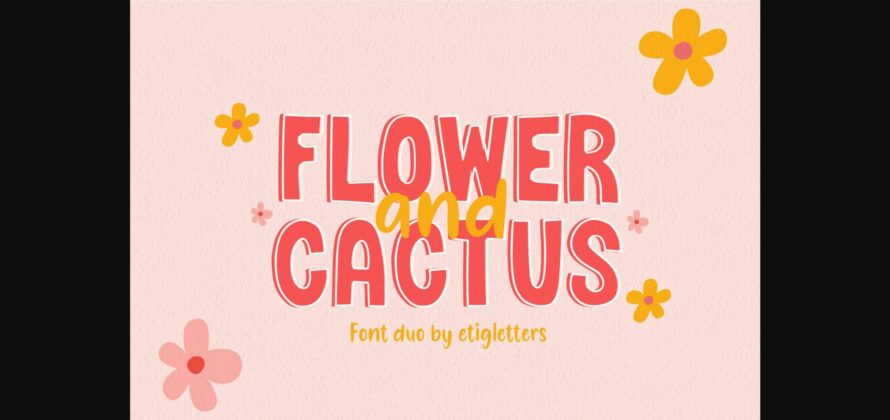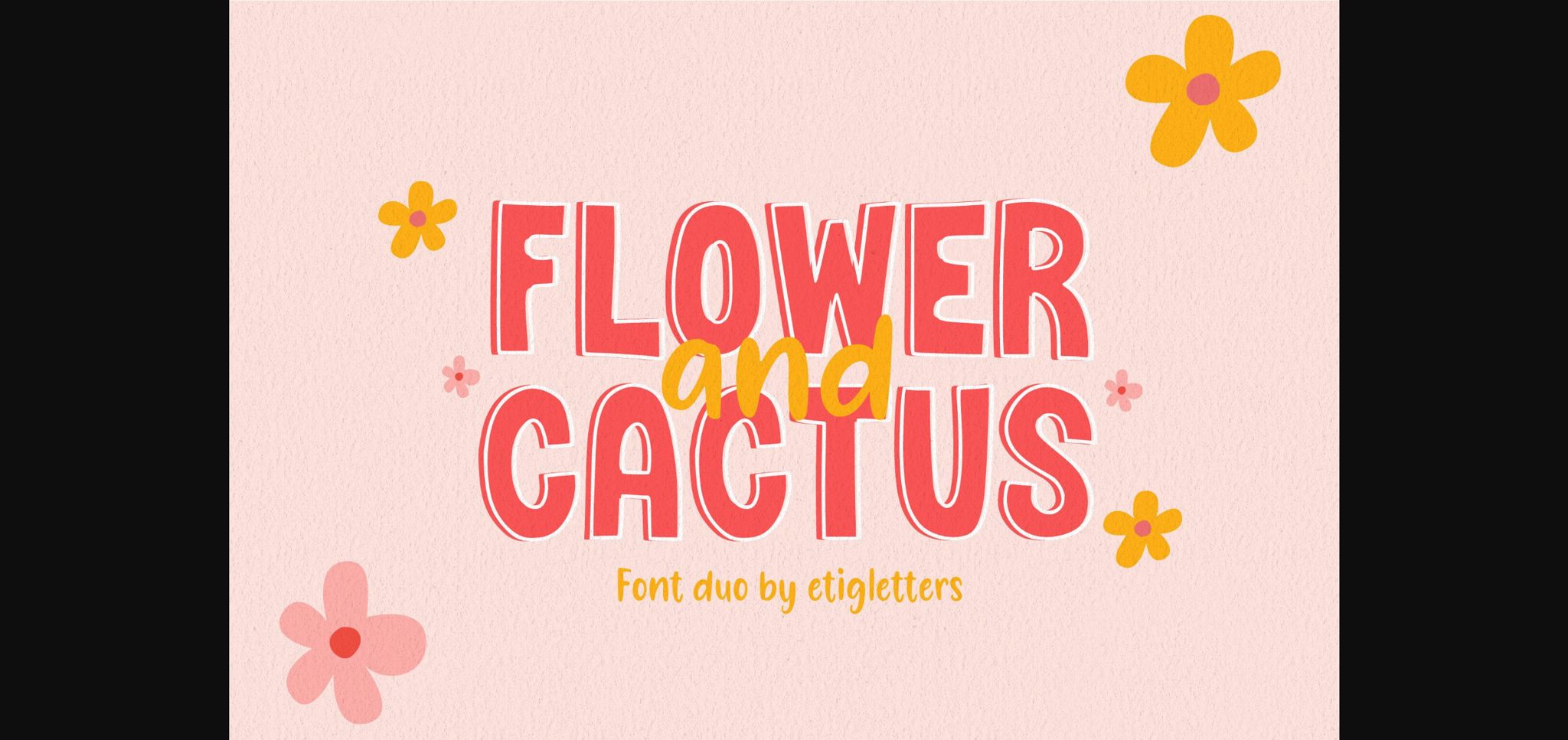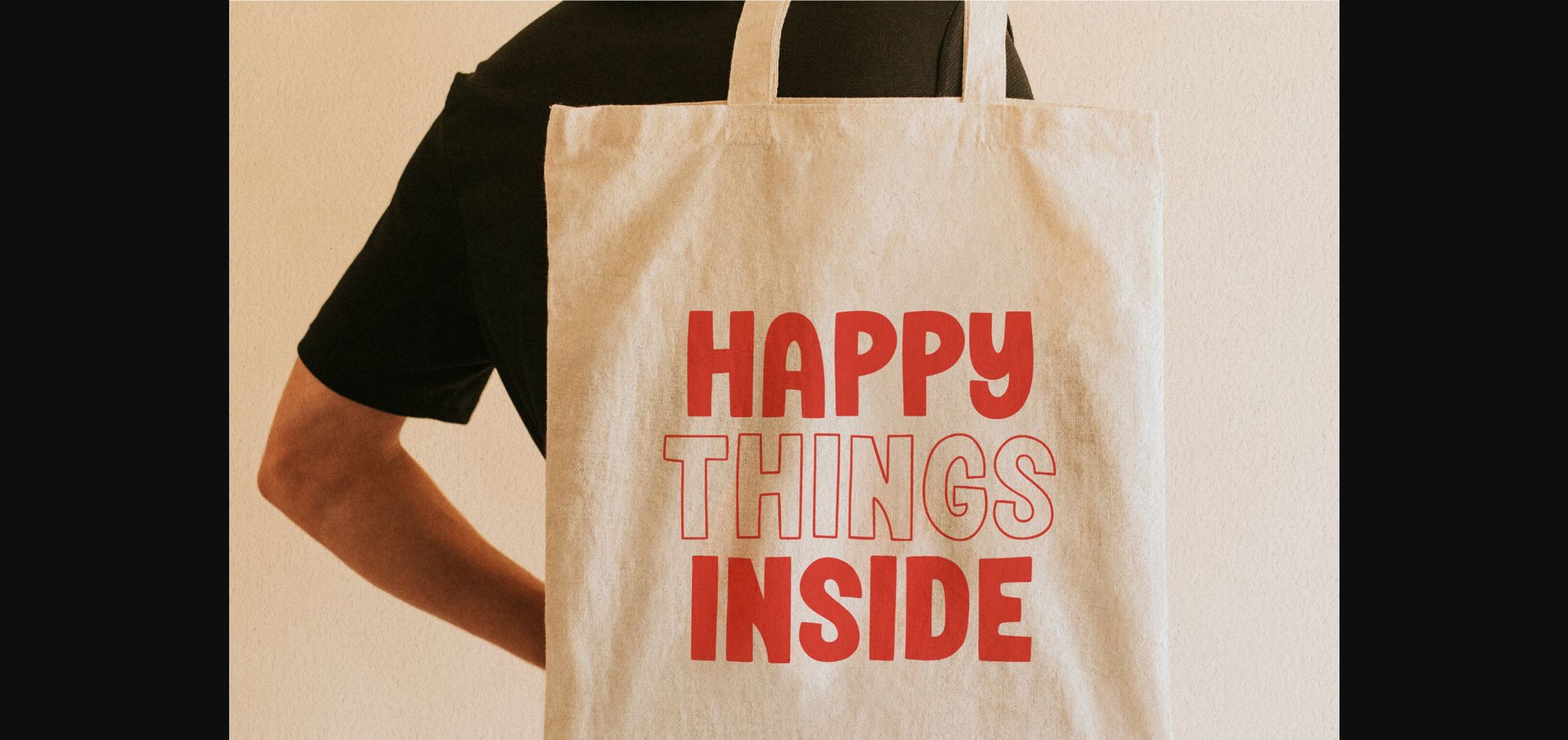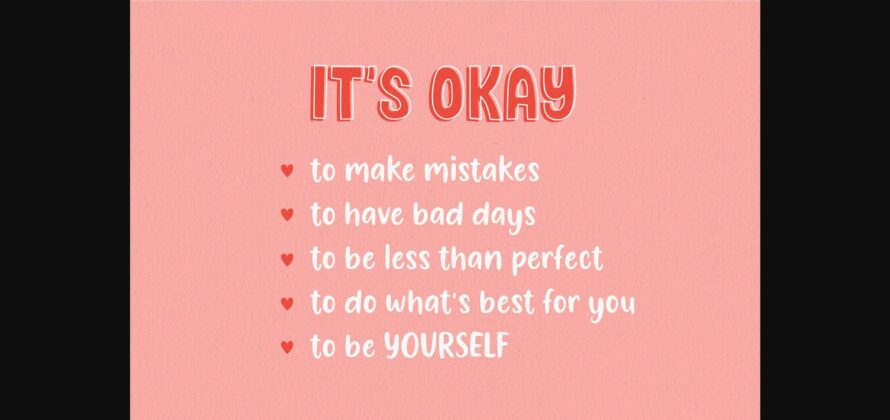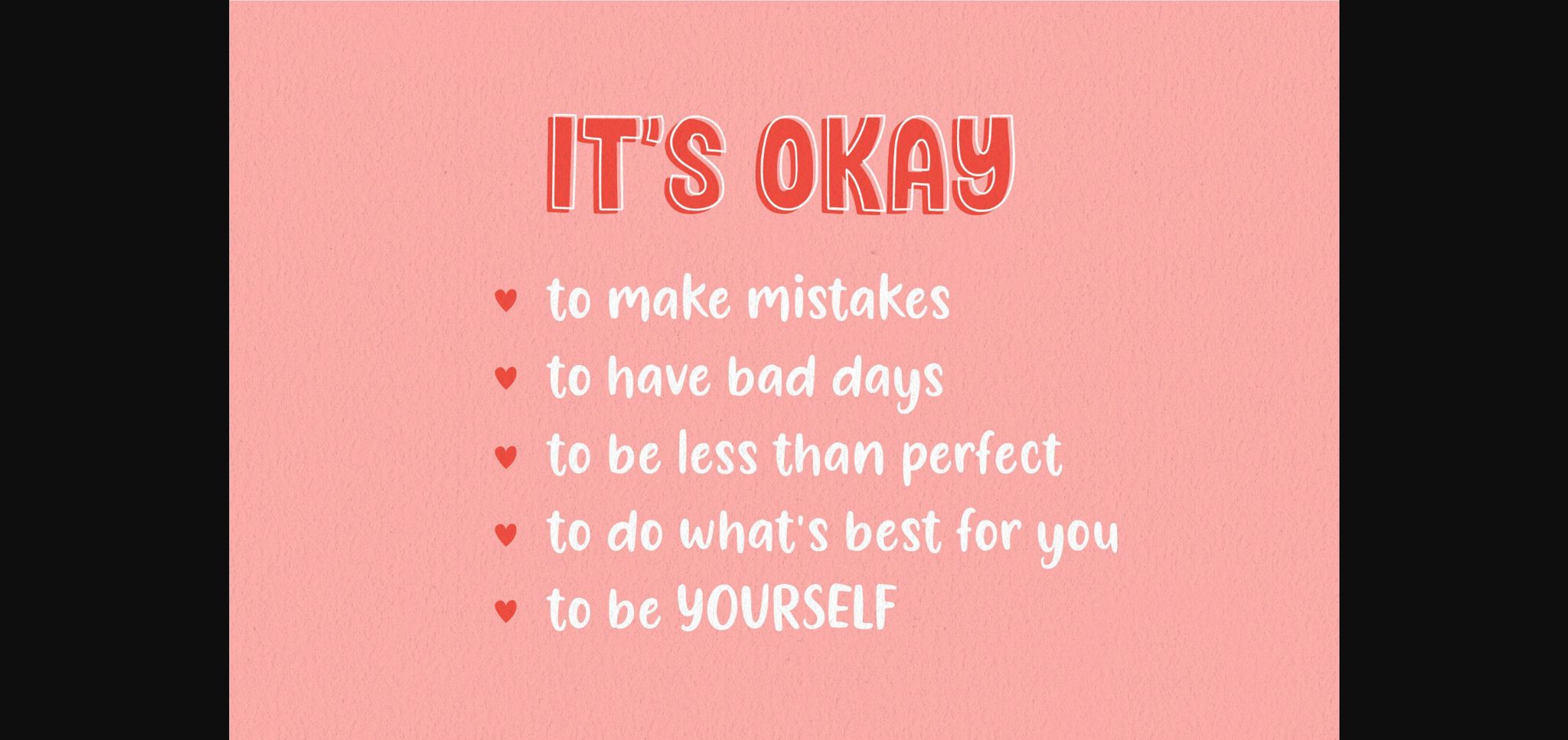
Flower and Cactus Duo Font
About Flower and Cactus Duo Font
Flower and Cactus is a playful and fun sans serif font combo. Flower and Cactus will be perfect for stickers, greeting cards, logos, posters, or anything that requires a fun and happy look!